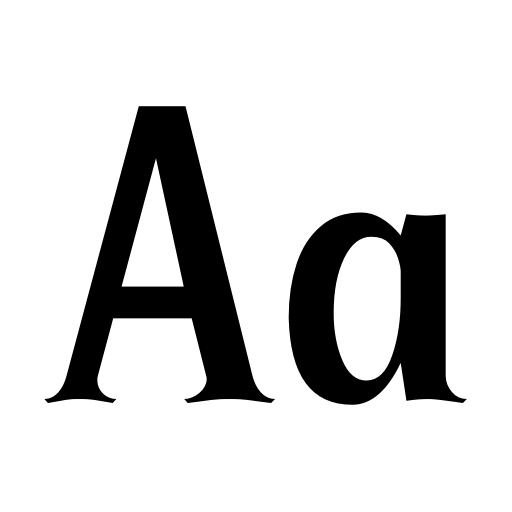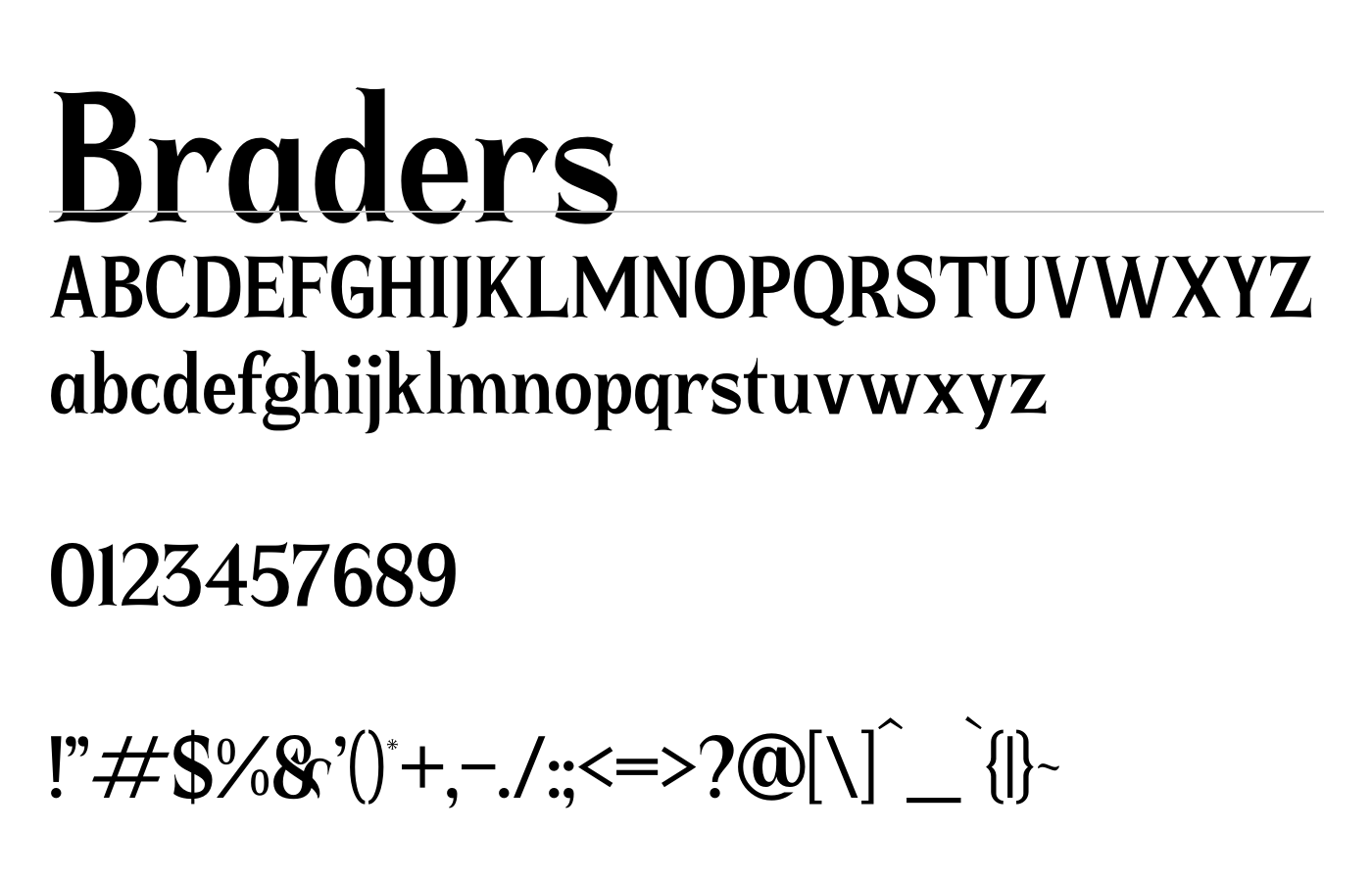
Braders is a serif font with a classic, elegant feel characterized by its sharp contrast between thick and thin strokes and bracketed serifs. Its moderate x-height and slightly condensed letterforms give it a refined yet readable presence, making it well-suited for editorial design, luxury branding, and sophisticated headlines. This typeface balances traditional charm with a modern touch, ideal for projects seeking a timeless and professional appearance.
Braders Font
About Braders Font